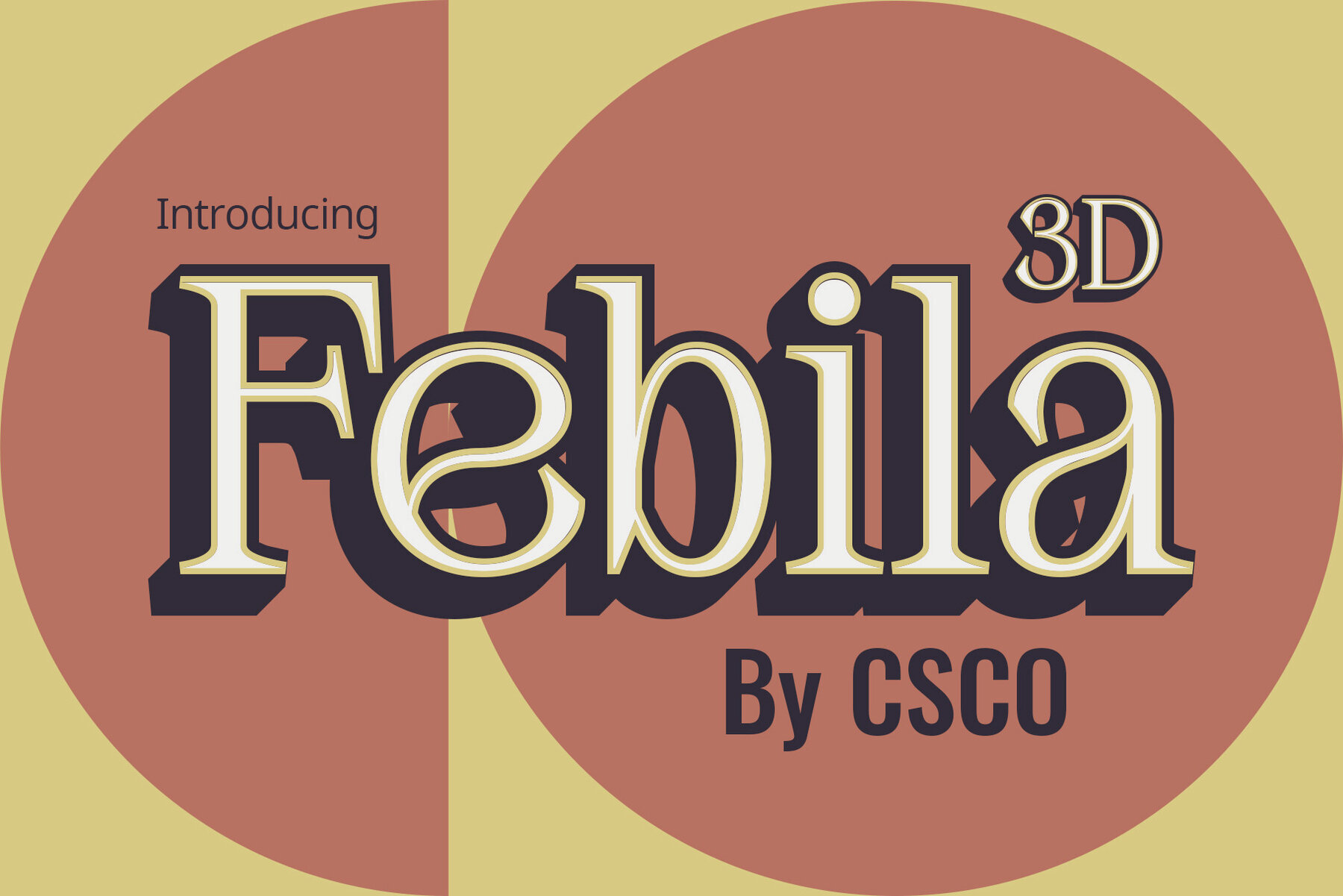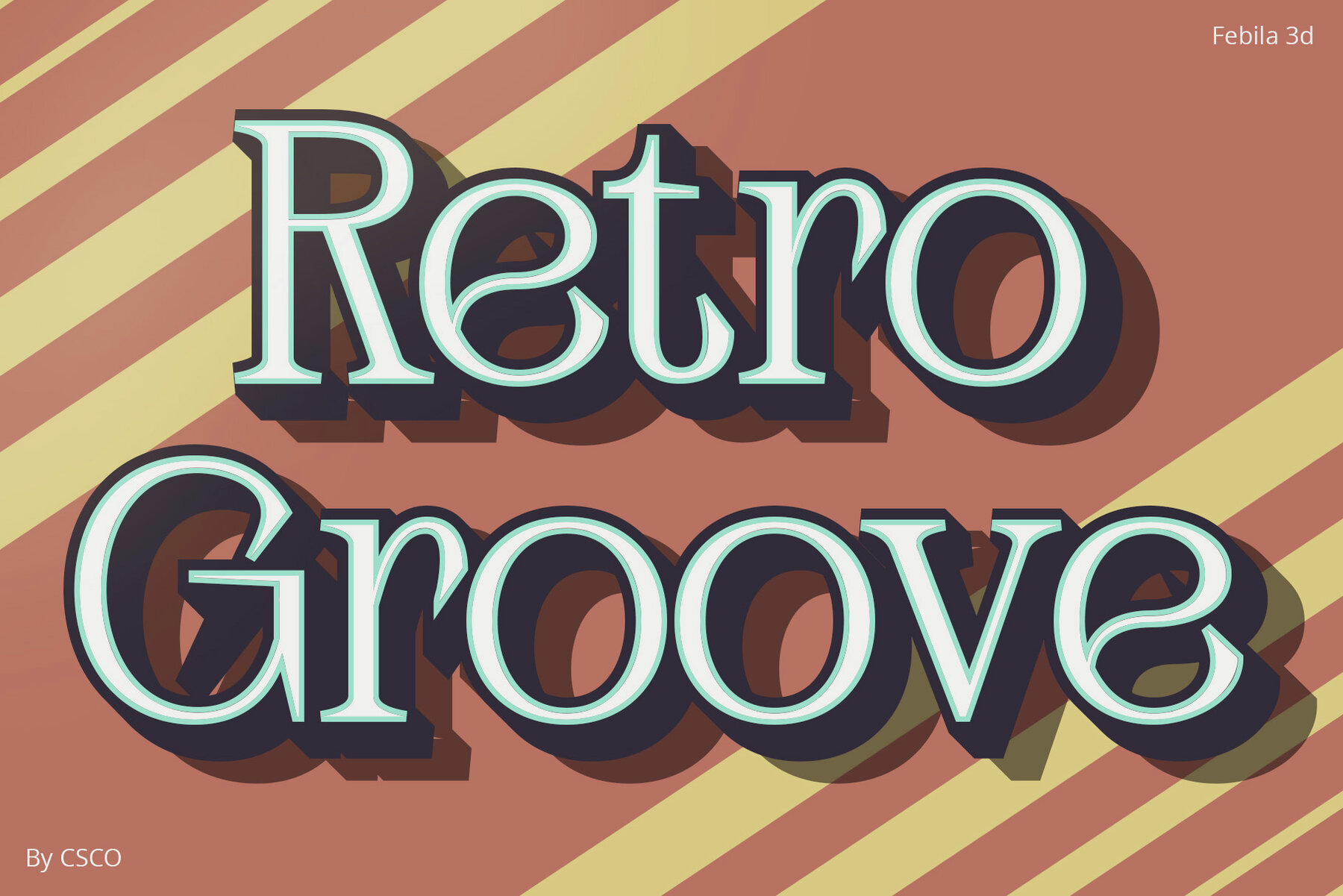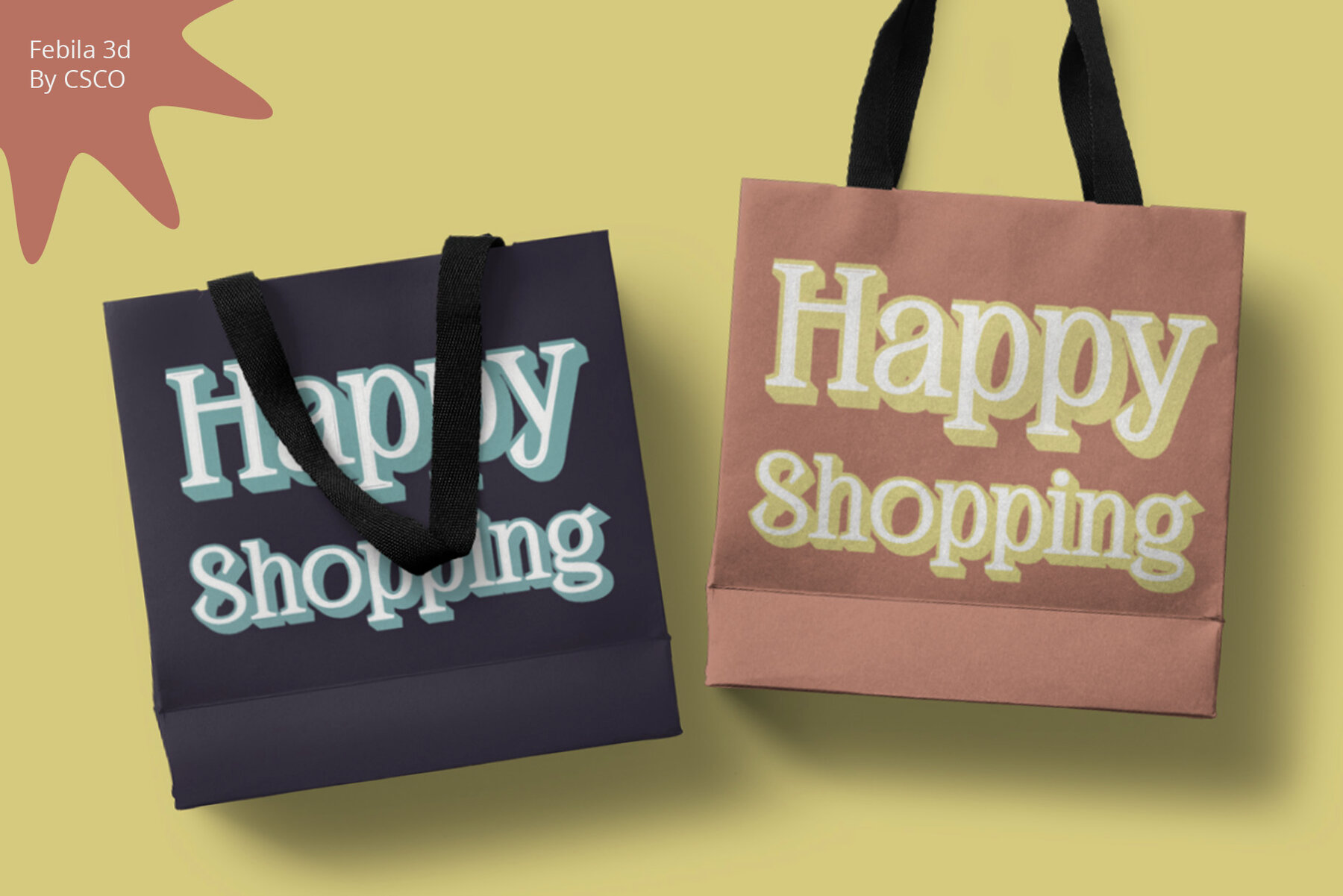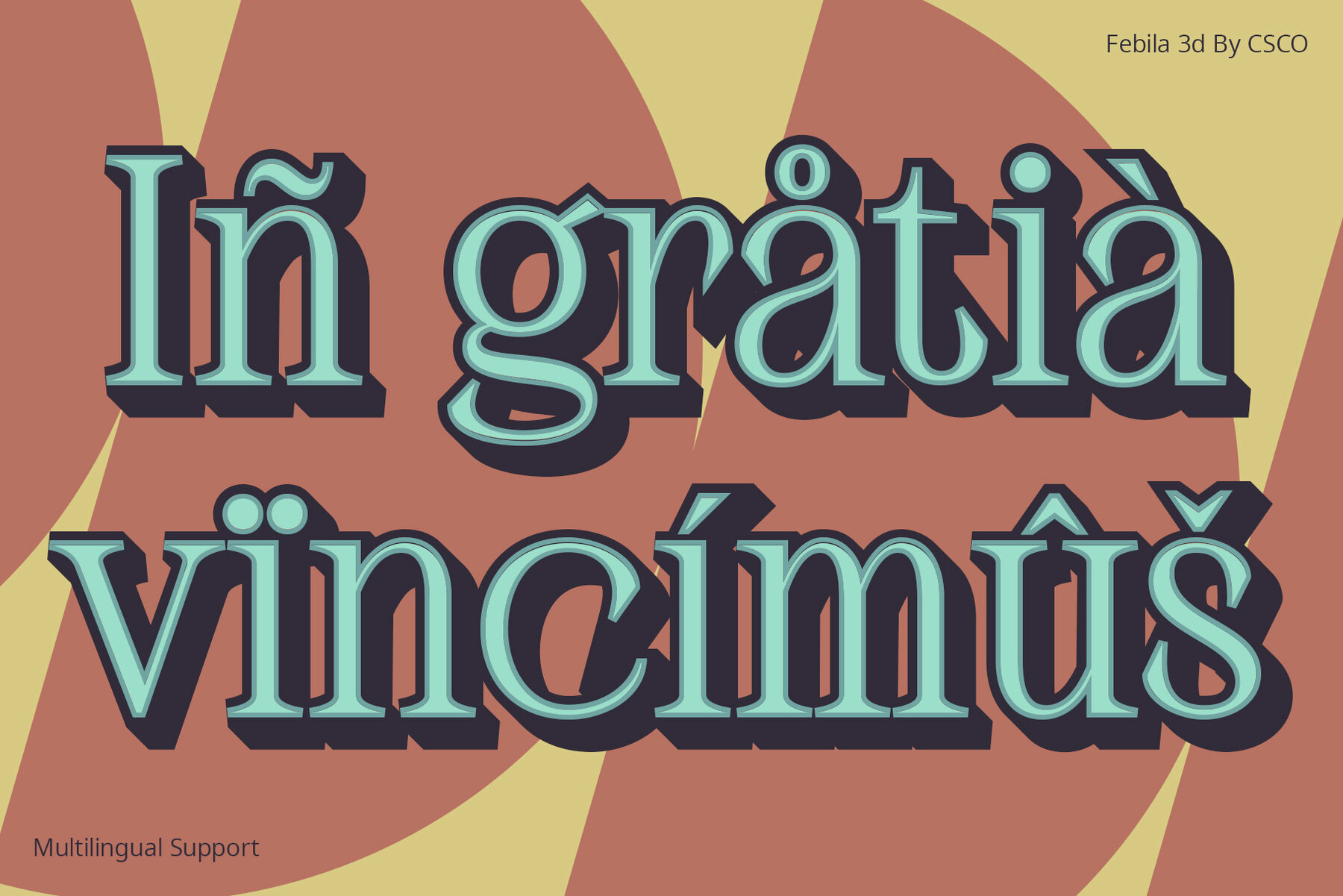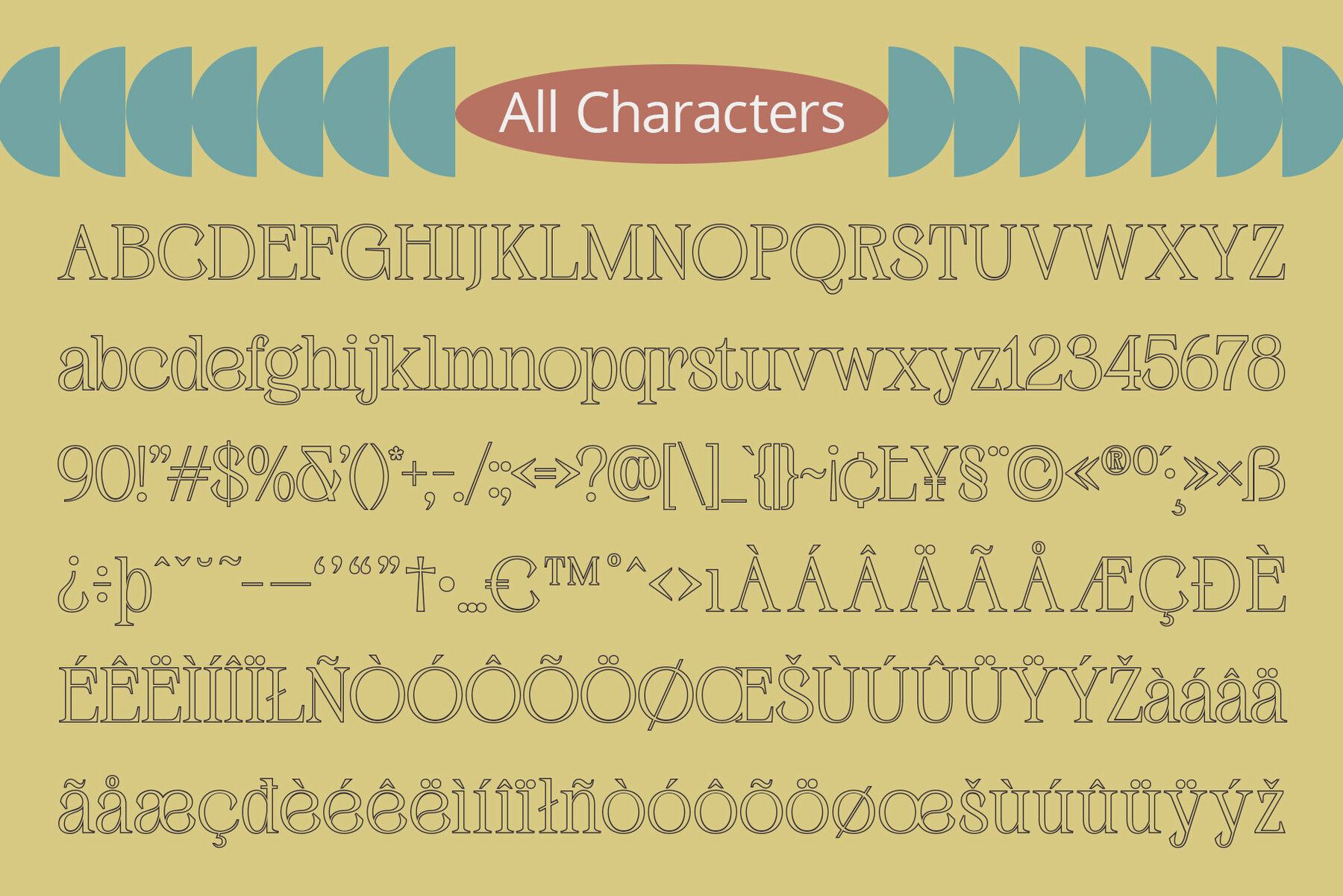
Febila 3D Font
Febila 3D by Craft Supply Co. combines timeless serif elegance with a contemporary 3D effect, offering a unique dimension to any design project. This typeface can be used without specialized software. If you have inquiries or need assistance, please feel free to contact us. We appreciate your support in enhancing your creative projects! Best regards, Craft Supply Co.Febila 3D: Sophisticated Serif with Dimension
Key Features of Febila 3D